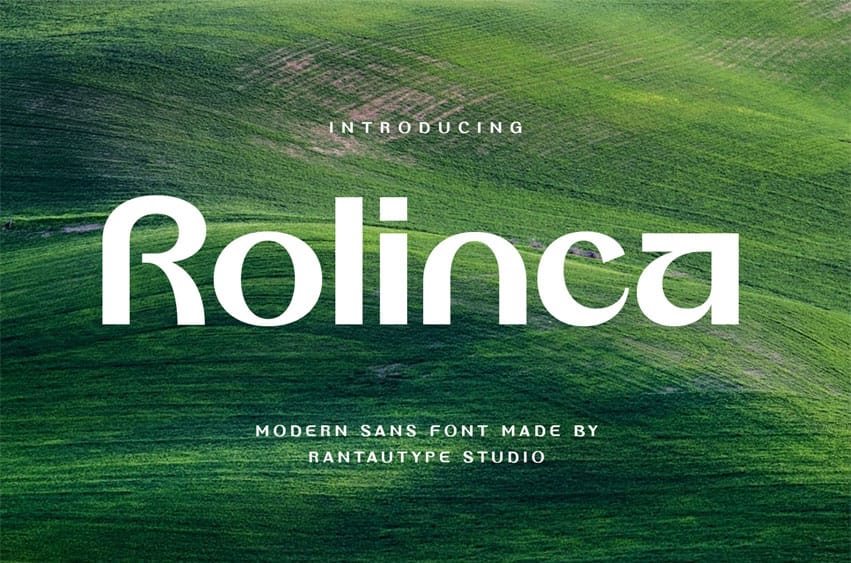
Rolinca Font is a modern sans font that represents the essence of contemporary design, clean, minimal, and highly versatile. Rolinca comes with smooth lines, balanced proportions, and consistent strokes. These fonts embody clarity and sophistication, making them ideal for a wide range of creative and professional applications. Rolinca brings strength and ability to communicate without distraction.. Their clean geometry and streamlined letterforms project confidence, innovation, and efficiency.
Rolinca is a perfect choice for any creative endeavor, chic lifestyle design, such as logotype, advertisements, watermark on photography, stationery, branding project, display and magazine, invitation, corporate brand, product design, label, business project, and many other projects with a modern touch.